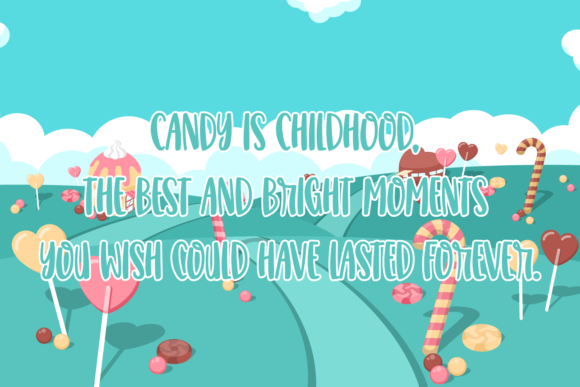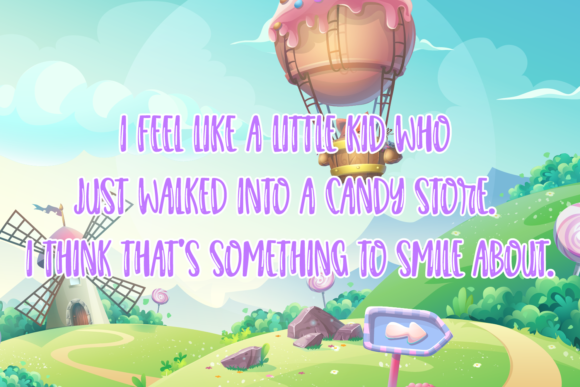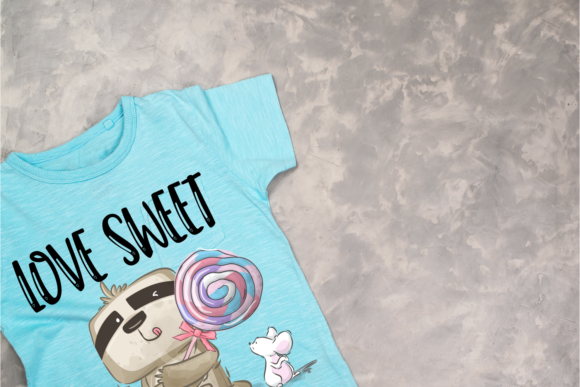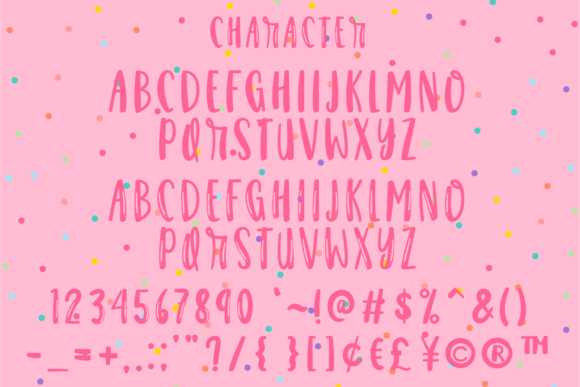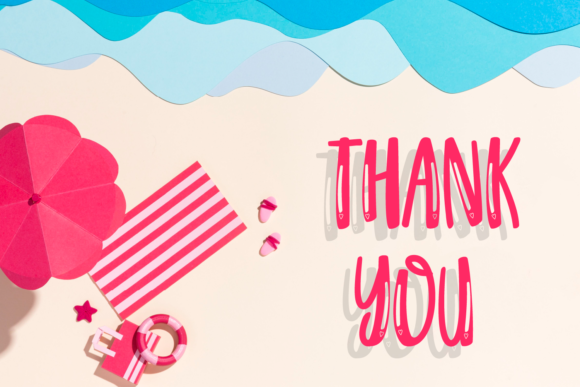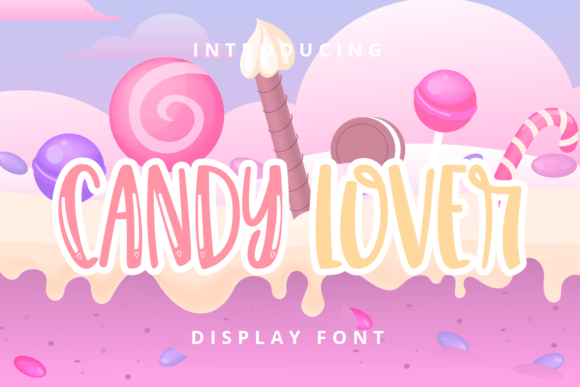
Candy Lover Font: The Sweetest Addition to Your Font Library
Are you a designer, crafter, or DIY enthusiast looking for a font that can add a touch of whimsy and fun to your projects? Look no further than the Candy Lover Font! This adorable display font is perfect for anyone who wants to create eye-catching and engaging designs that are sure to stand out. In this article, we’ll take a closer look at the Candy Lover Font, its features, and how it can elevate your creations.
What is Candy Lover Font?
Candy Lover Font is a cute and quirky display font that’s designed to add a touch of sweetness to your projects. With its playful and fun design, this font is perfect for a wide range of applications, from crafting and DIY projects to digital designs and marketing materials. Whether you’re creating invitations, posters, social media graphics, or blog posts, the Candy Lover Font is sure to make your designs pop.
Features of Candy Lover Font
So, what makes the Candy Lover Font so special? Here are just a few of its key features:
- Cute and Quirky Design: The Candy Lover Font has a unique and playful design that’s sure to capture attention. Its bold and chunky letters are perfect for creating eye-catching headlines and titles.
- Highly Versatile: This font is incredibly versatile and can be used for a wide range of projects, from digital designs to print materials.
- Easy to Read: Despite its playful design, the Candy Lover Font is easy to read, making it perfect for use in body text as well as headlines.
How to Use Candy Lover Font
So, how can you use the Candy Lover Font in your projects? Here are a few ideas to get you started:
- Create Eye-Catching Headlines: Use the Candy Lover Font to create bold and eye-catching headlines for your blog posts, social media graphics, and marketing materials.
- Add a Touch of Whimsy to Your Designs: Add a touch of whimsy to your designs with the Candy Lover Font. Use it to create fun and playful text overlays for your photos, illustrations, and other graphics.
- Make Your Invitations Stand Out: Use the Candy Lover Font to create custom invitations for parties, events, and other special occasions.
- Elevate Your Branding: Use the Candy Lover Font to create a unique and memorable brand identity for your business or personal brand.
Why You Need Candy Lover Font in Your Font Library
So, why do you need the Candy Lover Font in your font library? Here are just a few reasons:
- It’s Versatile: The Candy Lover Font is incredibly versatile and can be used for a wide range of projects.
- It’s Fun and Playful: This font is perfect for adding a touch of fun and whimsy to your designs.
- It’s Easy to Read: Despite its playful design, the Candy Lover Font is easy to read, making it perfect for use in body text as well as headlines.
- It’s Unique: The Candy Lover Font has a unique design that’s sure to make your designs stand out from the crowd.
In conclusion, the Candy Lover Font is a must-have for any designer, crafter, or DIY enthusiast looking to add a touch of fun and whimsy to their projects. With its cute and quirky design, high versatility, and ease of use, this font is sure to become a staple in your font library. Whether you’re creating digital designs, print materials, or marketing materials, the Candy Lover Font is the perfect choice. So why wait? Add the Candy Lover Font to your font library today and start creating sweet and engaging designs!